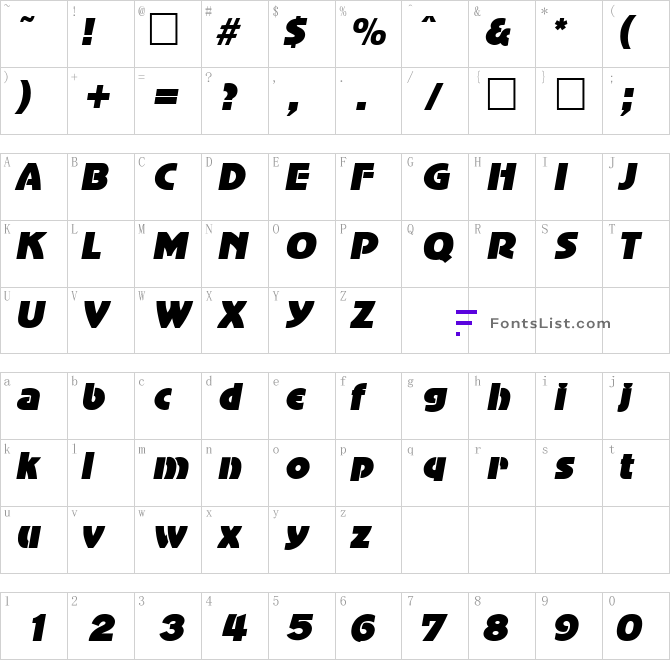
- Font Name:Adventurer Black SF
Adventurer-Black-SF-Italic.ttf is a very beautiful artistic font, Adventurer-Black-SF-Italic.ttf is widely used in the design and printing of various books and pictures,Adventurer-Black-SF-Italic.ttf has a strong visual impact,Adventurer-Black-SF-Italic.ttf is a commonly used font in newspapers, magazines and books, and is used in posters, e-commerce Poster design, store design, logo design, font design and other fields.Adventurer-Black-SF-Italic.